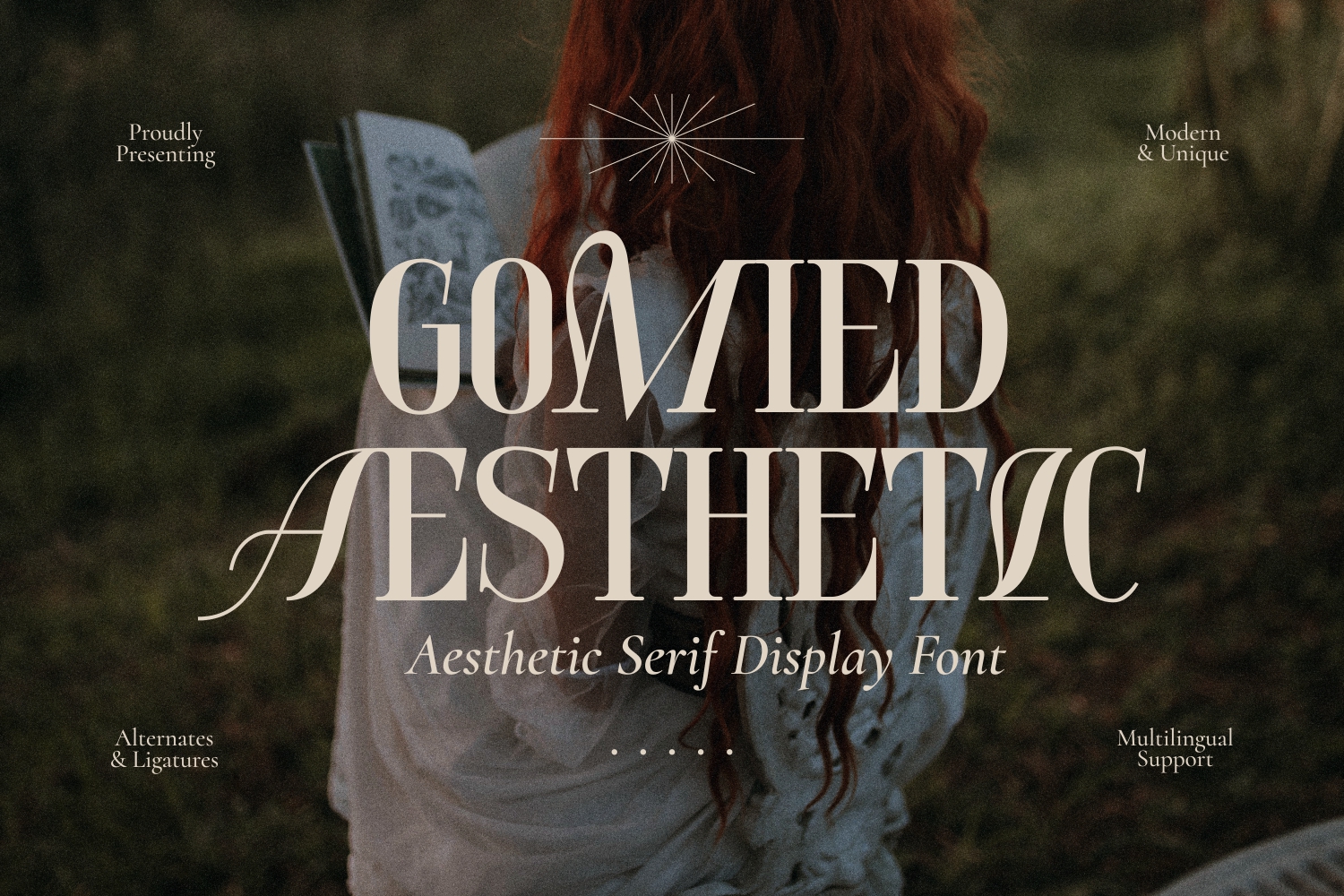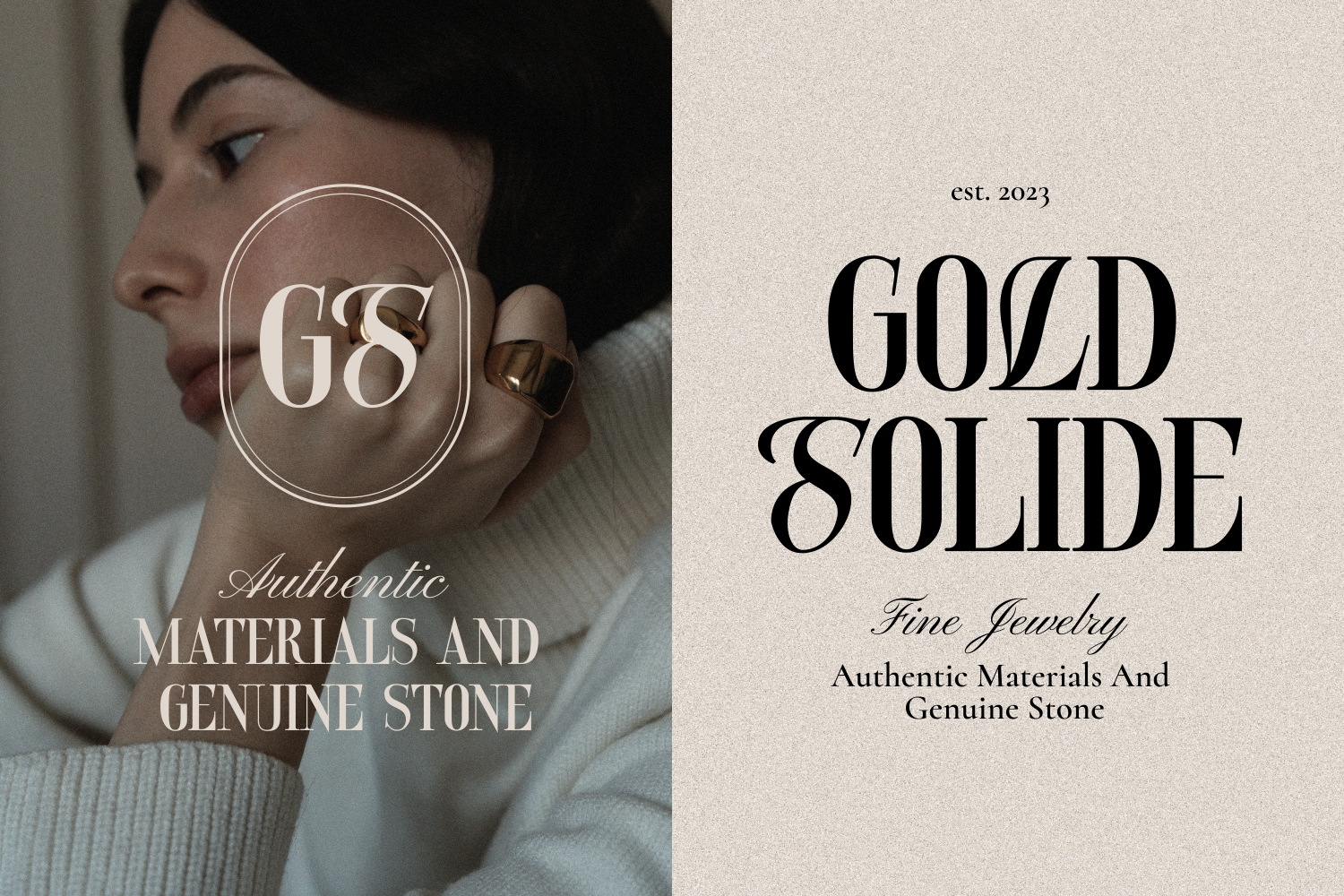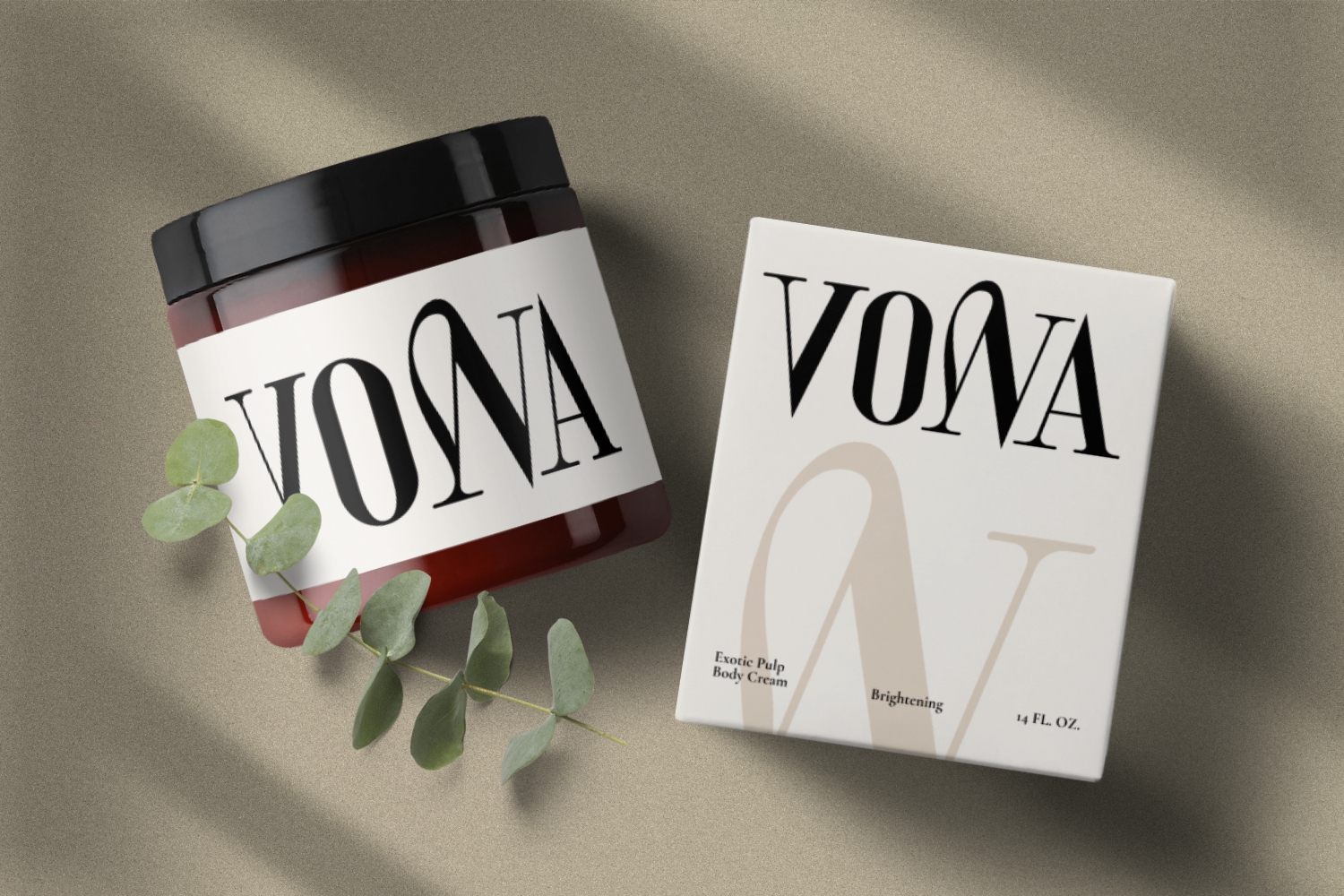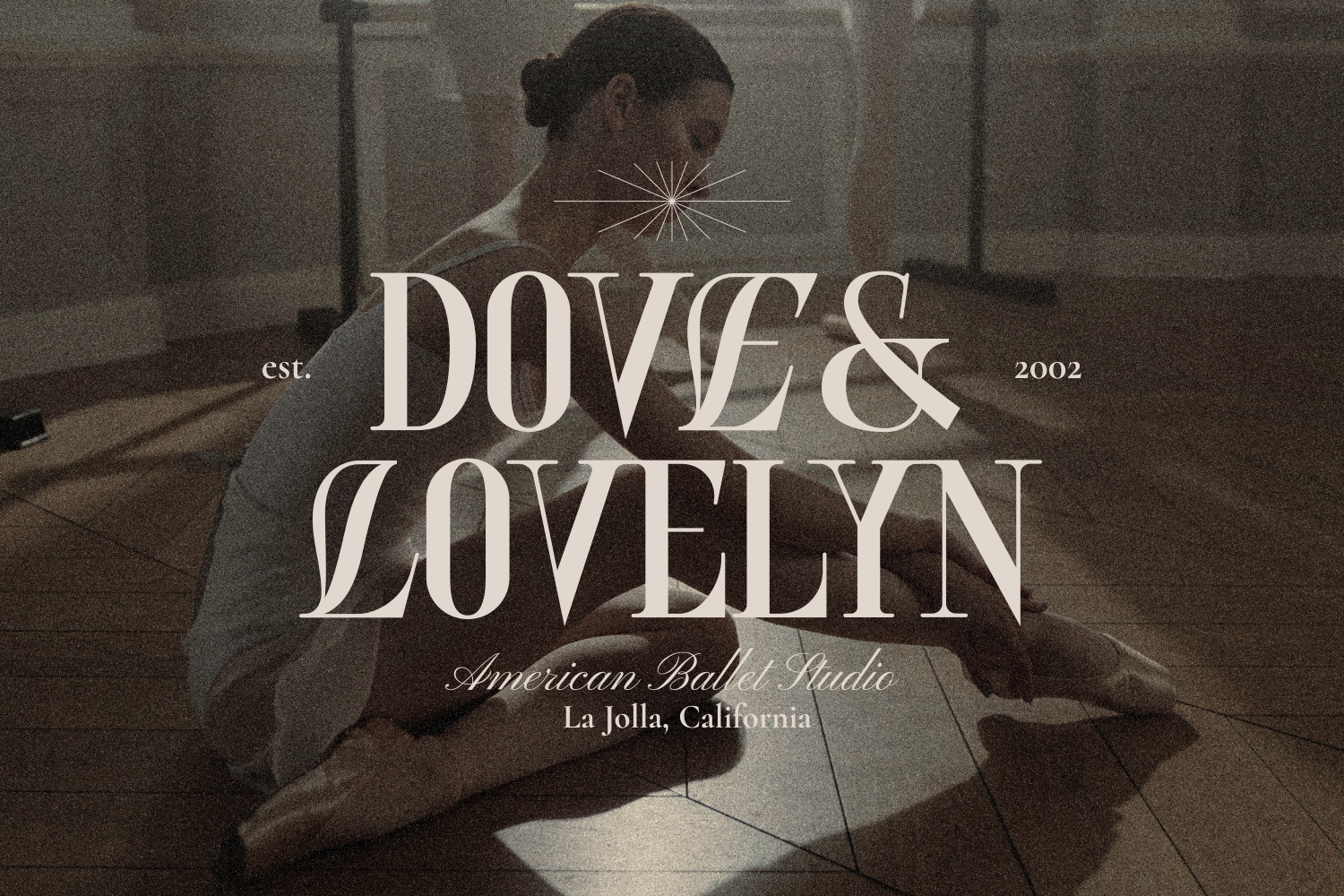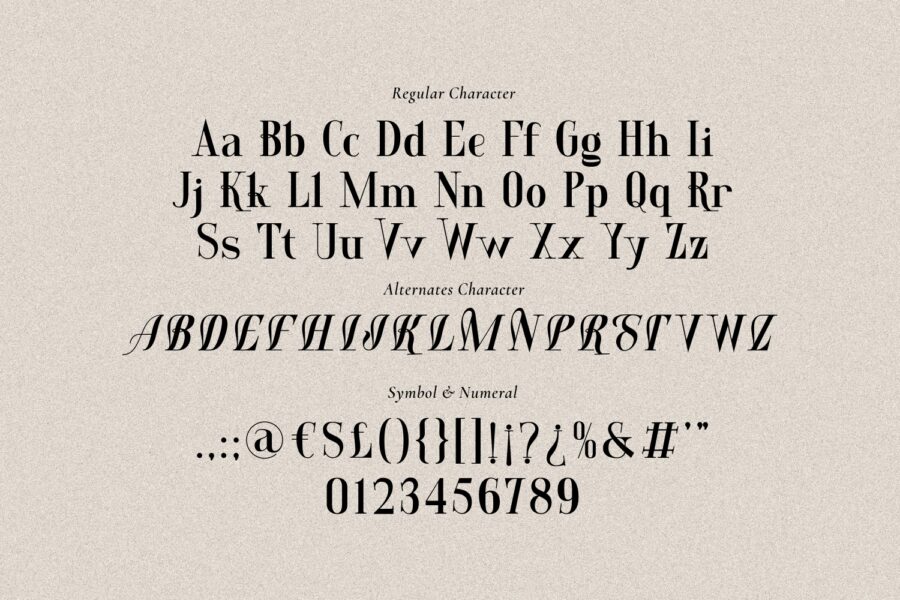
Gomied Aesthetic is a sophisticated serif display font that blends timeless elegance with modern creativity. Its refined letterforms are accentuated by high contrast strokes and stylish alternates, making it perfect for luxury branding, editorial designs, and statement-making logos. With its graceful curves and sharp serifs, Gomied Aesthetic delivers an exquisite aesthetic that instantly elevates any visual composition.
Designed with attention to detail, Gomied Aesthetic offers a selection of alternates and ligatures to enhance typographic versatility. This multilingual typeface is ideal for fashion labels, beauty products, wedding invitations, and upscale packaging. Whether used for headlines or refined branding, its classic yet contemporary style ensures your designs exude sophistication and charm.